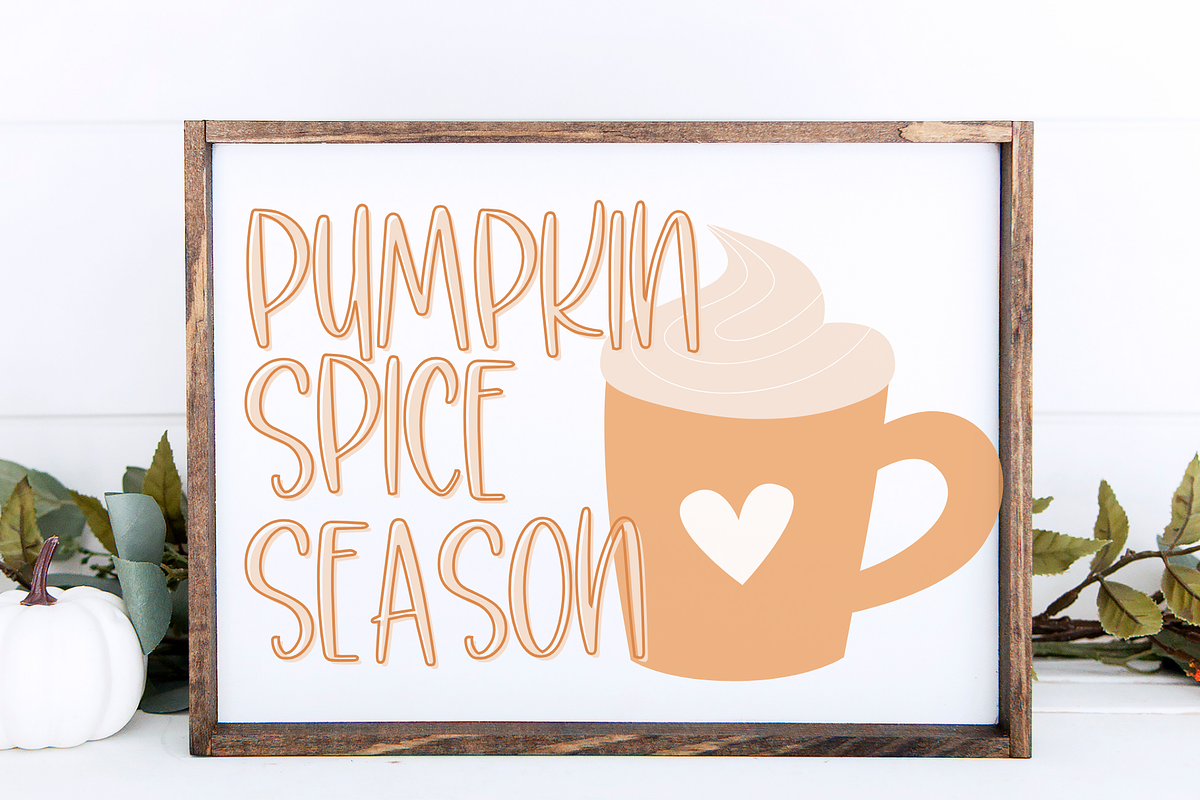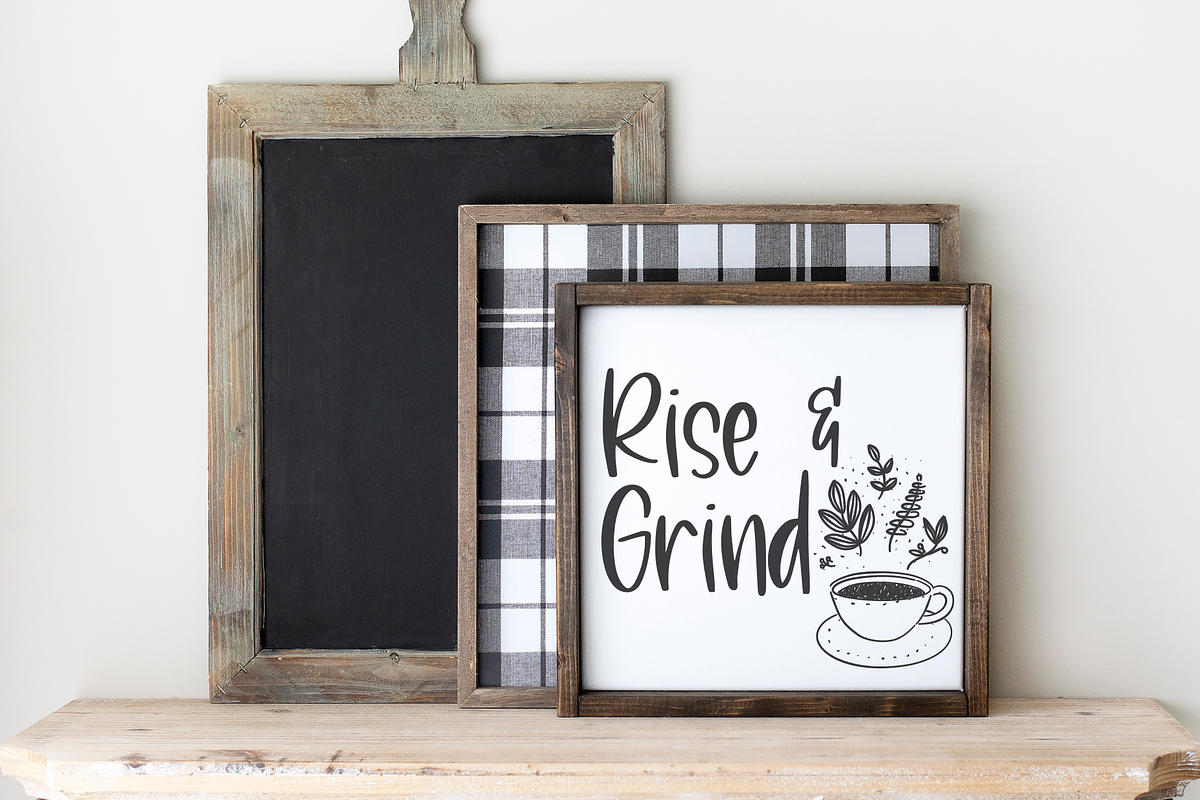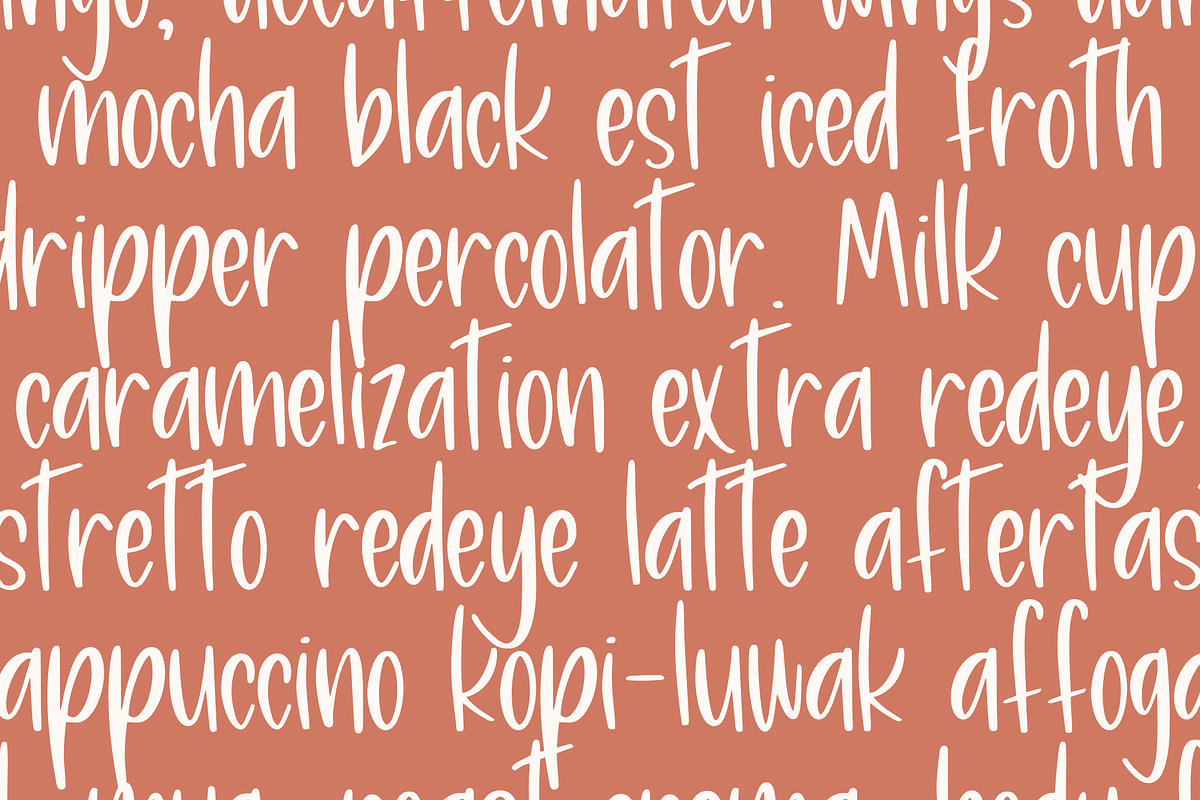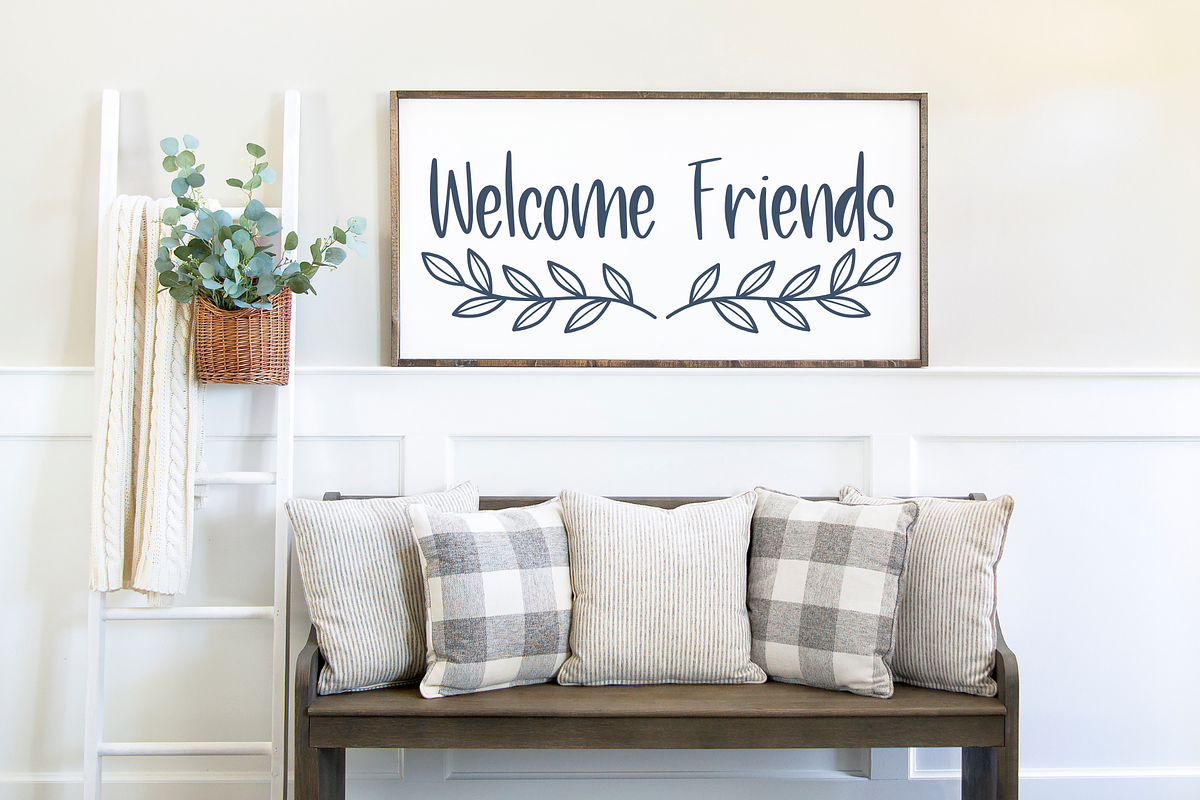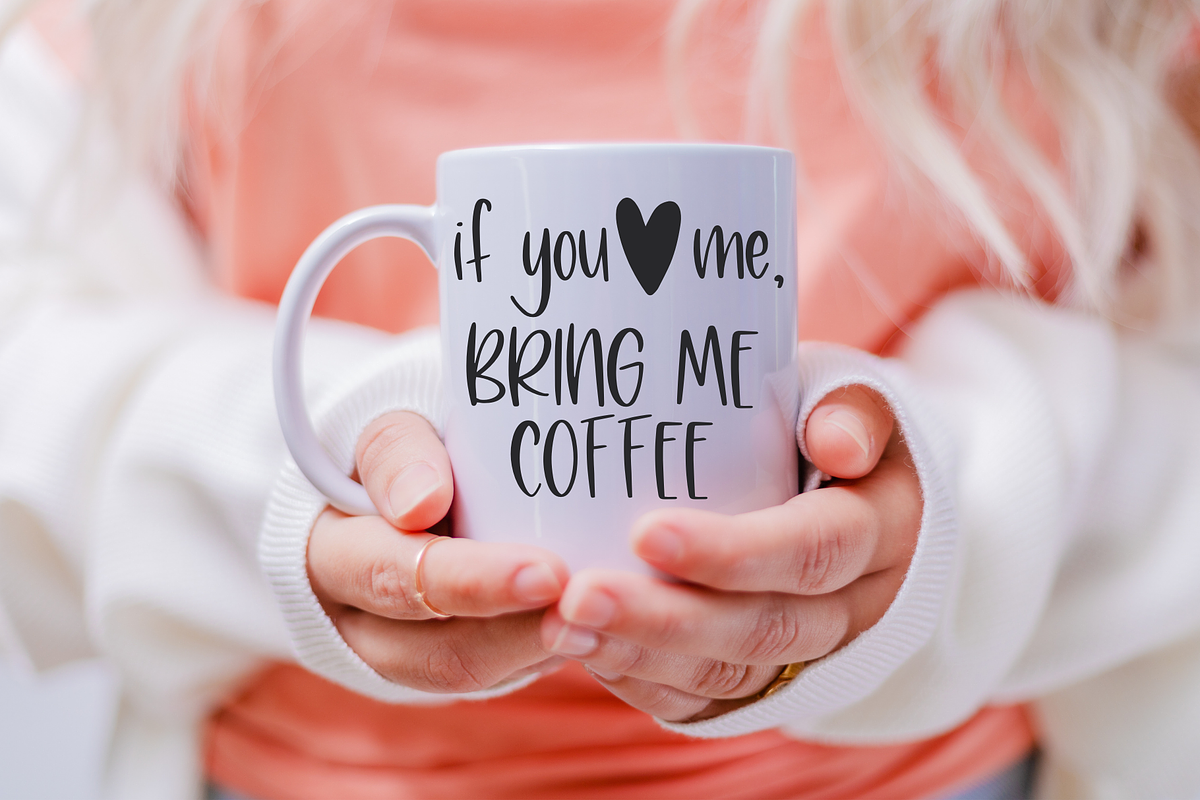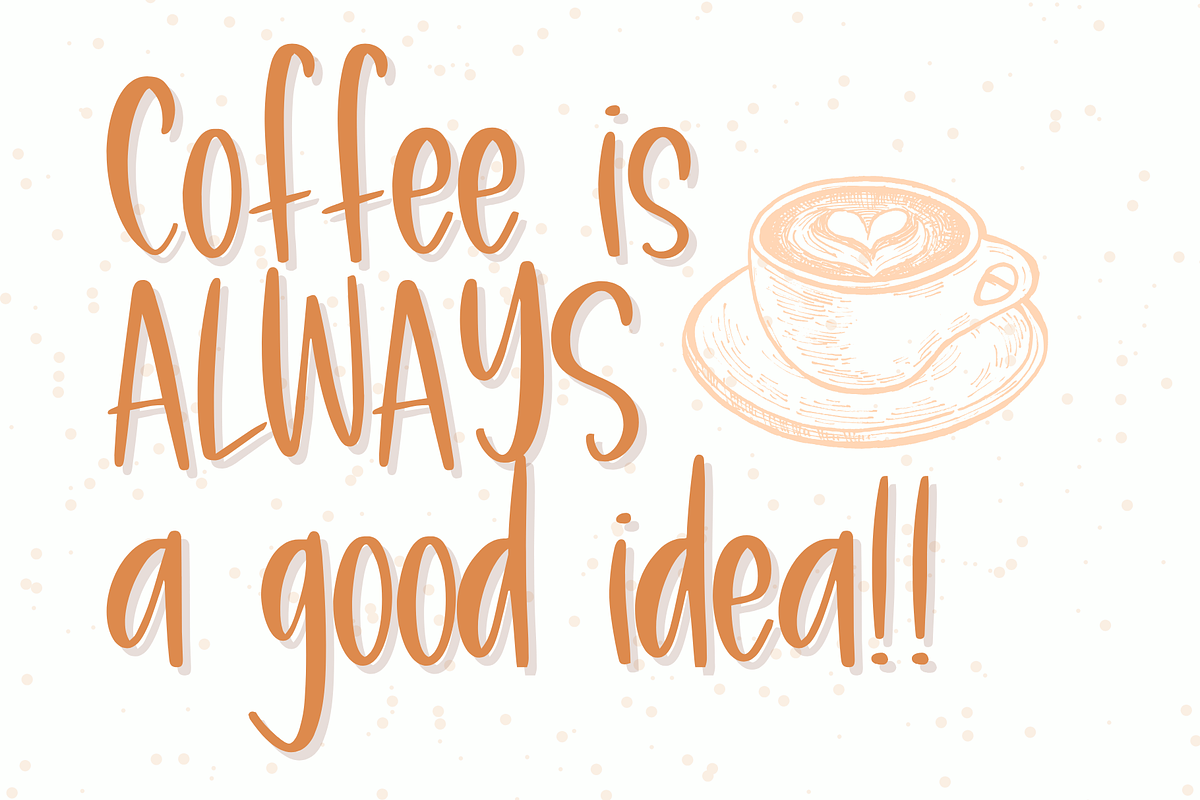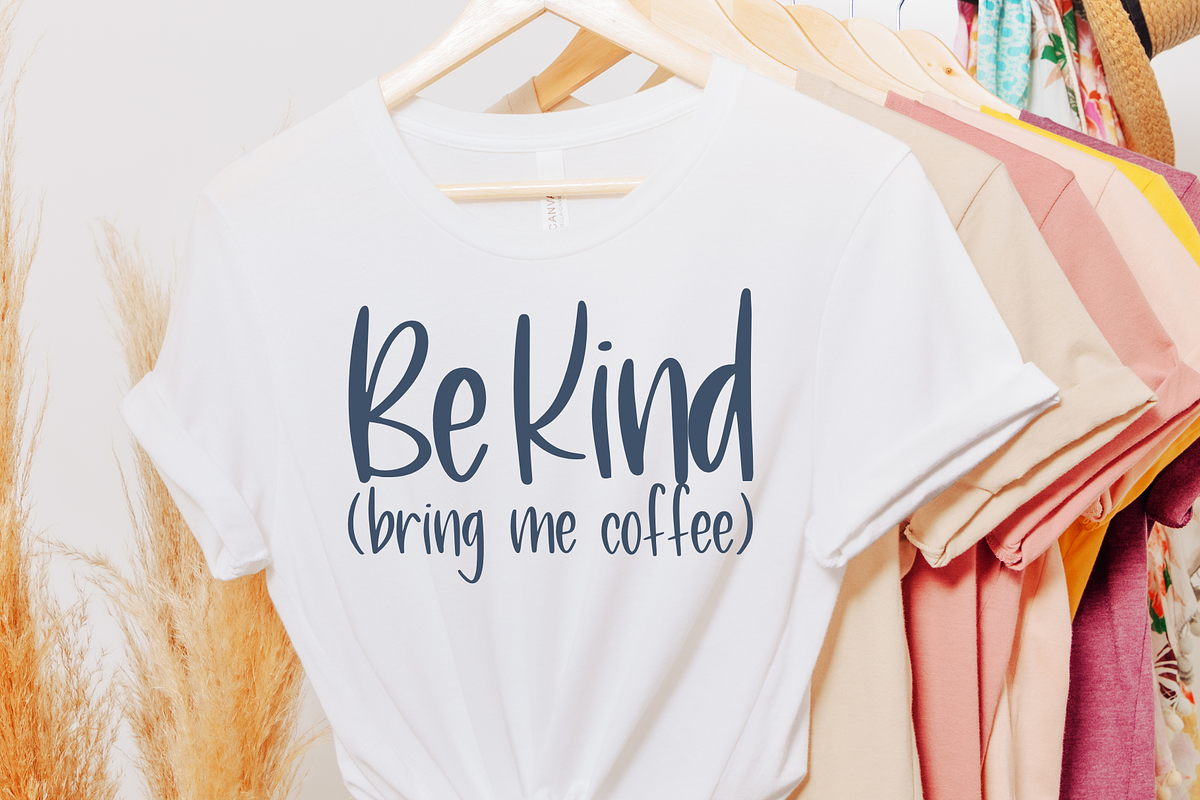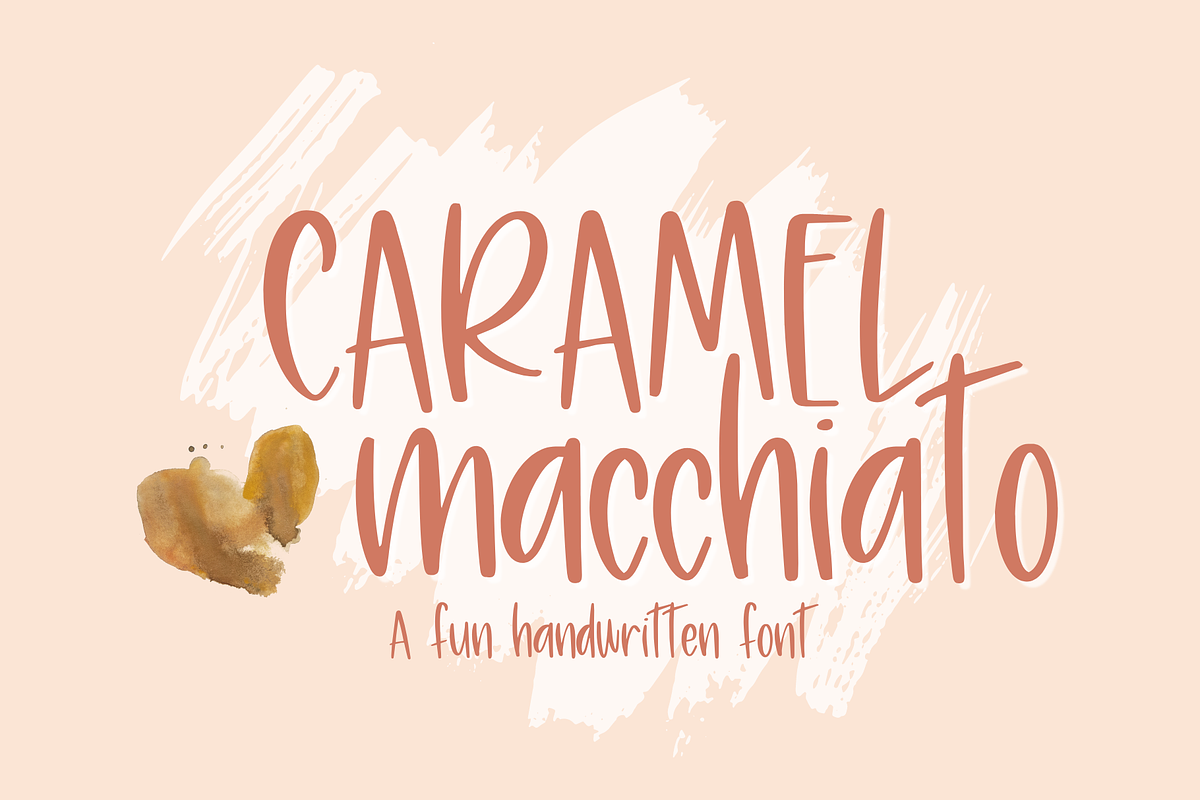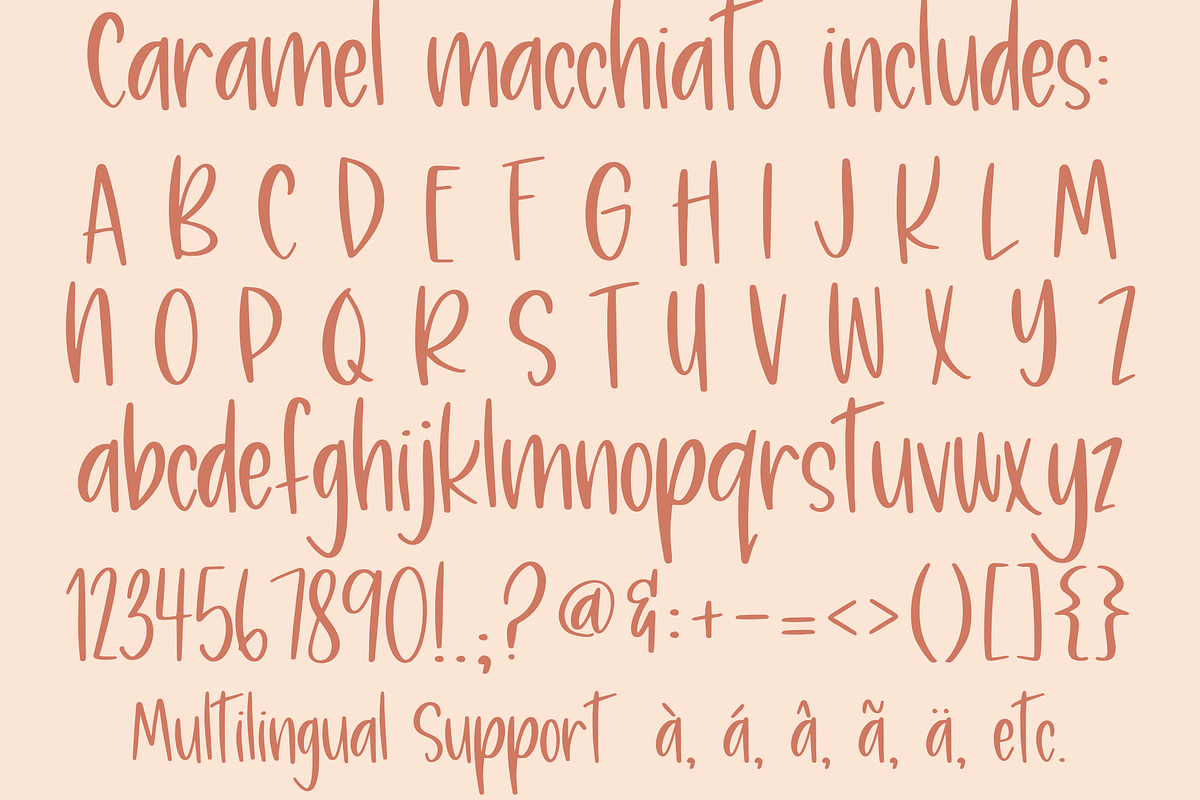
Caramel Macchiato, Cute Handwriting
Introducing Caramel Macchiato, an energetic Handwritten Font for Cricut - a charming and cute addition to your creative projects! This cute handwriting is perfect for all your Cricut designs, Goodnotes, Procreate, & more. With its playful and fun handwriting style, it adds a touch of whimsy and personality for crafting cards, scrapbooking, or designing SVG files. Get ready to impress with our amazing Cricut font collection and unlock endless possibilities for your artistic endeavors!